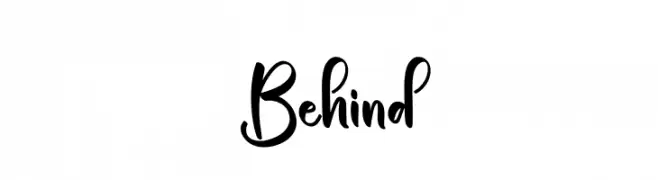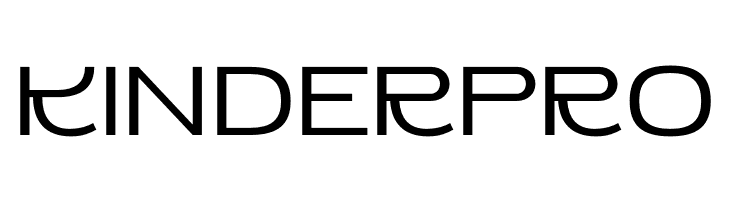
( Fonts by Tebaltipis Studio )
A playful, bold font with thick, rounded, and whimsical letterforms.
( Fonts by Scratchones )
A whimsical font with rabbit ear decorations on each character, perfect for playful designs.
( Fonts by AEN Creative Studio )
A playful, modern font with rounded characters and subtle decorative elements.
( Fonts by Kong Font )
A bold, playful font with bunny ears on each letter, perfect for whimsical designs.
( Fonts by Miss Tiina Fonts )
A doodle-style emoji font with expressive, cartoonish faces and icons.
( Fonts by PutraCetol Studio )
A playful, decorative font with leaf accents and a whimsical script style.
( Fonts by Kong Font )
A bold, playful font with a chunky, whimsical design perfect for fun projects.
( Fonts by PutraCetol Studio )
A playful, floral-accented decorative font with bold, rounded characters.
( Fonts by D K )
A playful, hand-drawn font with bold, rounded characters and cheerful motifs.
( Fonts by Galdino Otten Fonts )
A bold, italic, comic-style font with a playful and dynamic appearance.
( Fonts by Galdino Otten Fonts )
A playful, bold font with a comic-like, hand-drawn style.
( Fonts by Galdino Otten Fonts )
A playful, rounded font with a whimsical and informal style.
( Fonts by Galdino Otten Fonts )
A playful, handwritten font with a bold, rounded style and slight slant.
( Fonts by VinType )
A playful, rounded font with a bold and friendly appearance.
( Fonts by D K )
A playful, hand-drawn font with a whimsical, cartoonish style.
( Fonts by Khurasan )
A playful, rounded font with a friendly and informal style.
( Fonts by D K )
A playful, bold font with rounded, hand-drawn characters.
( Fonts by Misti's Fonts )
A playful, bold font with rounded edges and a friendly appearance.
( Fonts by D K )
A playful, bold font with a hand-drawn, whimsical style and unique noodle bowl symbols.
( Fonts by Khurasan )
A bold, playful font with rounded, bubbly characters and a whimsical style.
( Fonts by Ahmad Suhadi )
A playful, bold, and rounded font with a cartoonish style.
( Fonts by Graphicfresh )
A playful, handwritten-style font with bold, irregular characters.
( Fonts by Balpirick Studio )
A playful, handwritten font with smooth, rounded letterforms and a casual style.
( Fonts by girinesia.std )
A bold, playful handwritten font with a casual and friendly vibe.
( Fonts by D K )
A playful, bold font with a hand-drawn, casual aesthetic.
( Fonts by Adzriel Radeya Alfarizi )
A playful and rounded font with a modern, whimsical style.
( Fonts by Khurasan )
A playful, outlined font with a cartoonish and whimsical style.
( Fonts by MJType )
A bold, rounded font with a playful and friendly style.
( Fonts by Khurasan )
A bold, playful font with rounded characters and a whimsical style.
( Fonts by D K )
A bold, spooky, and playful font with a hand-drawn, Halloween-inspired style.
( Fonts by Ahweproject )
A bold, playful font with jagged edges resembling dinosaur spikes.
A clean, geometric font with rounded edges and consistent stroke width.
A modern, geometric font with a minimalist and sleek design.
( Fonts by Ollie )
A playful, bold font with a hand-cut, irregular design.
A bold, rounded font with a modern and approachable style.